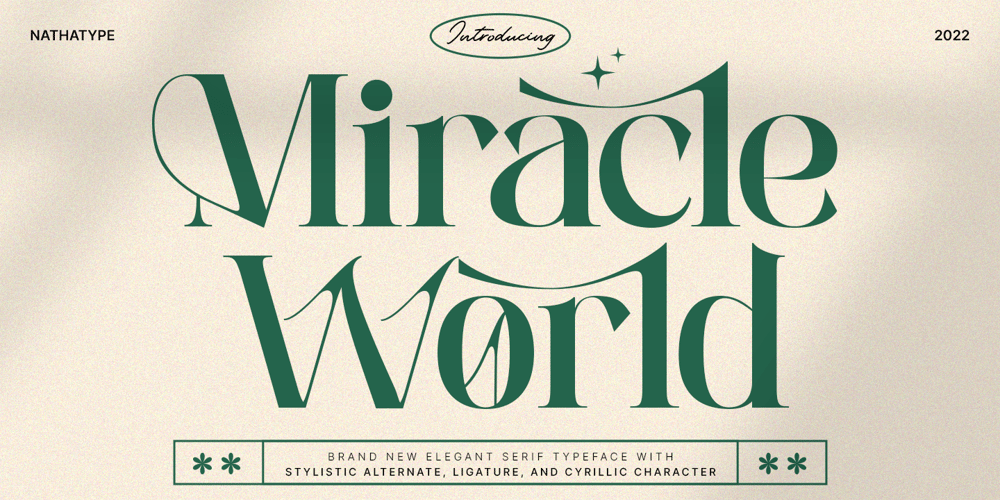
Miracle World Font Family was designed by Donis Miftahudin and published by Nathatype. Miracle World contains 1 styles and family package options. Do you want to get something miracle?Miracle World is an elegant serif font to level up your design into something miracle. It can never go wrong to be applied in any purposes. The weight of the font was designed to bring strength to any title/header. On the other hand, the curves of the characters convey a sense of elegance. It is also has fascinating features that helps you maximize your design.Features: Stylistic Sets Ligatures Multilingual Supports Numerals and Punctuations PUA Encoded It can be used for many design projects, such as poster, logo, book cover, branding, heading, printed product, merchandise, quotes, social media campaign, etc. Learn more about how to use it by seeing the font preview.Thank you for purchasing our fonts. Please don’t hesitate to contact us, if you have any further question or issues. We’re happy to help. Happy Designing.